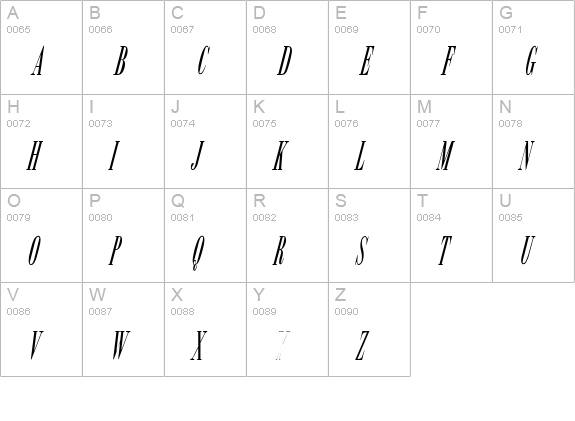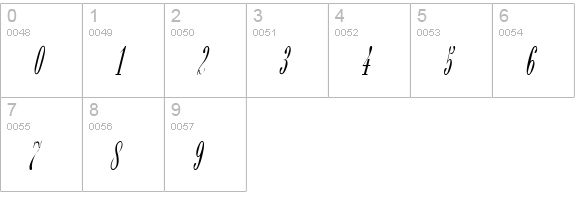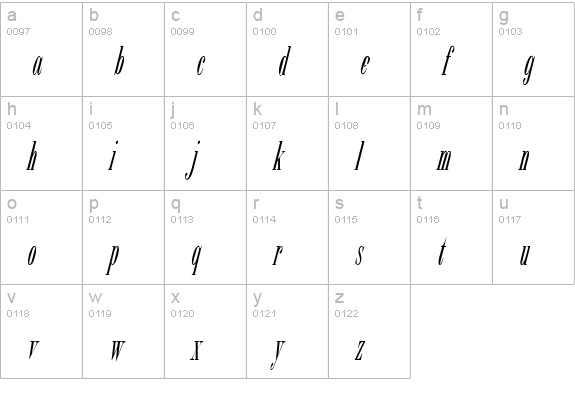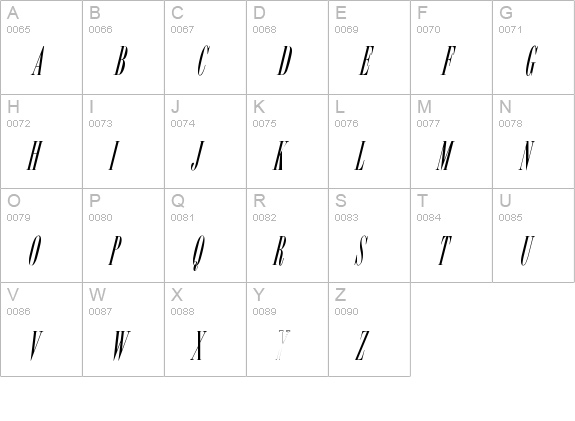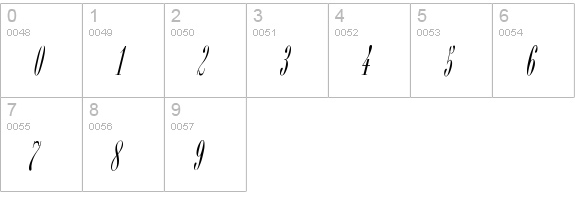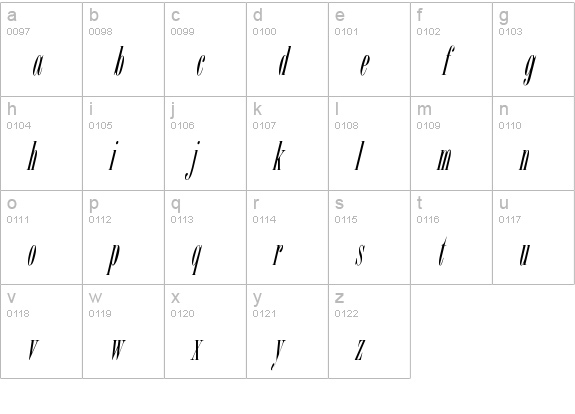
CutterItalic Font Details
The CutterItalic font is a stylish and elegant typeface that combines modern design with a touch of sophistication. Its sleek and slender letterforms exude a sense of grace and refinement, making it perfect for projects that require a touch of class. This versatile font is ideal for a wide range of design applications, from invitations and wedding stationery to branding and packaging. Its italicized style adds a dynamic and contemporary flair to any project, while maintaining a sense of elegance and professionalism. And the best part? CutterItalic is available for free download at FontsMarket.com, making it easily accessible to designers and creatives looking to elevate their projects with a touch of sophistication. Don't miss out on this opportunity to enhance your designs with the timeless beauty of CutterItalic font.